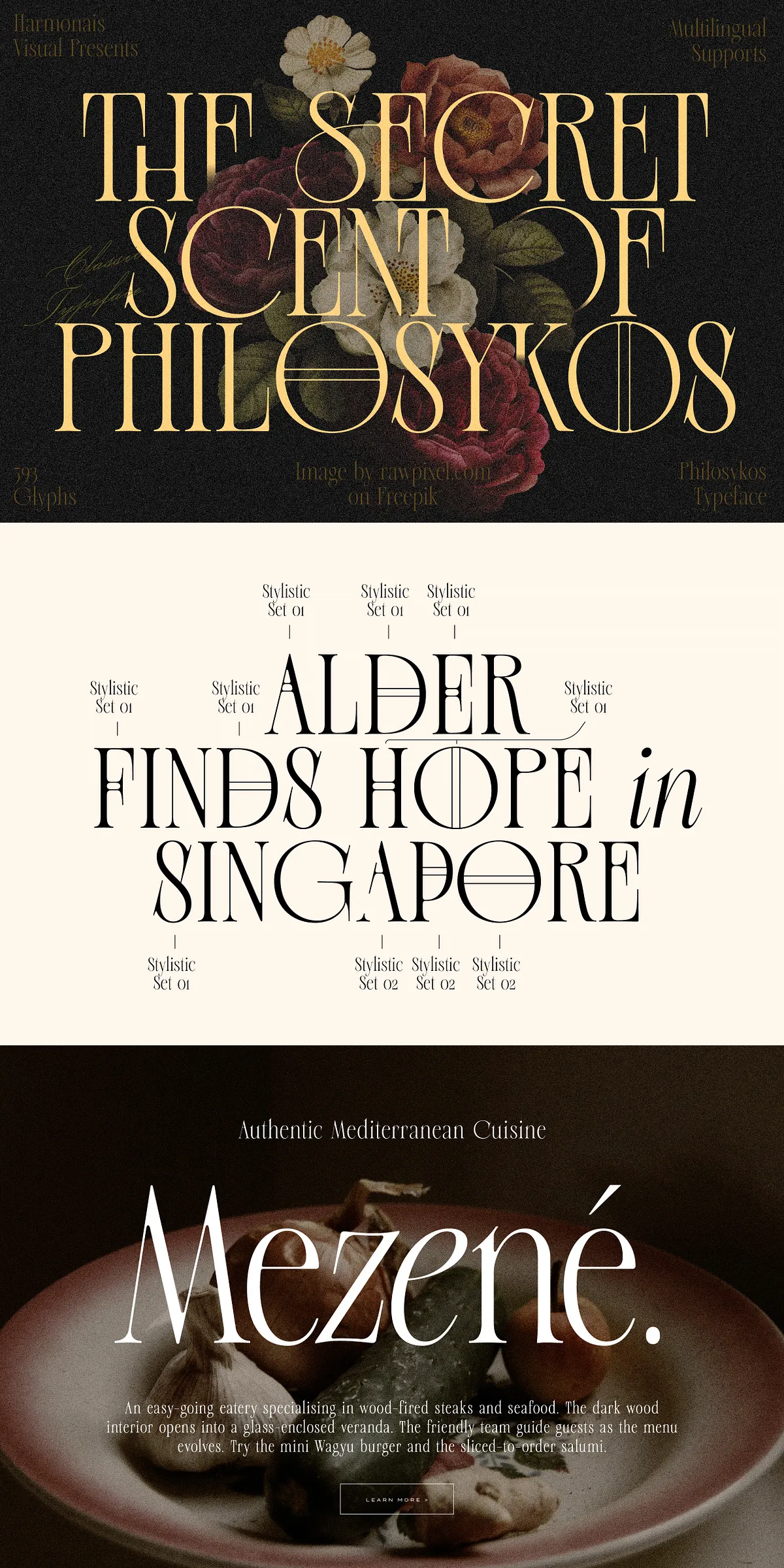
Step into the world of refined sophistication with Philosykos—a high-end serif typeface meticulously crafted for designers who demand both elegance and precision. Built for creators who appreciate the subtle power of typographic artistry, Philosykos transforms every word into a statement of class and grace. This isn’t just a font; it’s your secret weapon for crafting compelling, lasting visual identities.
Masterfully Crafted Details, Built for Impact
Every curve, every crossbar, and every ligature in Philosykos has been hand-tuned to achieve flawless balance and visual harmony. The font’s intricate details deliver a refined aesthetic that speaks to discerning design sensibilities. With over 80 expertly designed ligatures, you gain the ability to create seamless, fluid text that feels fluid, intentional, and deeply authentic. Whether you’re setting body copy or creating bold headlines, the fluid transitions between characters elevate your work to editorial and luxury branding standards.
Precise Control with Four Distinct Styles
Philosykos offers four powerful variations to fit any design need:
- Regular: The foundation of elegance—ideal for clean, readable layouts and professional documents.
- Italic: Add movement and rhythm to prose, captions, or quotations with a flowing, graceful slant.
- Bold: Command attention with a strong, confident presence for headlines and branding elements.
- Bold Italic: The ultimate statement style—combine power and motion for maximum impact in posters, covers, or editorial pieces.
With these four styles at your fingertips, you’re equipped to build cohesive visual systems—whether for a minimalist book cover, a high-end packaging line, or a luxury brand identity.
Designed for Global Excellence
Philosykos isn’t just elegant—it’s globally ready. Support for European languages and Vietnamese ensures your typography remains beautiful and accurate across borders. Whether you’re targeting Parisian boutiques, Berlin galleries, or Hanoi’s creative studios, Philosykos maintains its integrity and readability in every character set. No need to compromise on language support—this font delivers consistency, clarity, and cultural relevance wherever your designs go.
Unleash Your Creative Vision
Philosykos wasn’t made for the mundane. It’s made for designers who want to create work that lingers in the mind. Use it to:
- Create timeless book covers that beg to be picked up.
- Design premium branding and packaging that exudes luxury and attention to detail.
- Build editorial layouts with a voice of quiet confidence.
- Develop sophisticated logos and stationery that speak volumes without saying a word.
Let Philosykos be the silent architect of elegance in every project.
Don’t just design—inspire. With Philosykos, your words become art. Your message becomes legacy. Your brand becomes unforgettable.